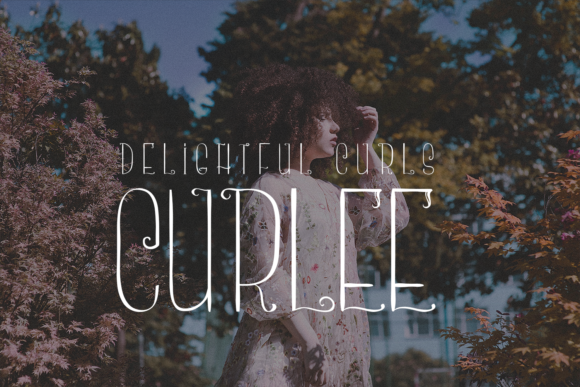
Curlee Font
Get ready to embark on a typographic safari with Curlee Font, the breathtaking display font that will transform your designs into a visual wonderland. Inspired by the untamed beauty of nature, Curlee Font is crafted to emulate the intricate curves and delicate lines found in the heart of the jungle.
With its thin and lovely appearance, Curlee Font exudes an aura of sophistication and elegance, making it the perfect choice for creating captivating logos, alluring branding, and stunning invitations that are sure to leave a lasting impression. Its versatility knows no bounds, allowing you to effortlessly elevate any project, from playful social media posts to eye-catching marketing campaigns.
Dive into the depths of Curlee Font's character set and discover a world of typographic possibilities. Unleash your creativity and let the uppercase and lowercase letters, numbers, and limited punctuation dance across your screen, bringing your words to life with a touch of natural elegance. The possibilities are endless as you explore the diverse range of applications that await you.
Step into a world of limitless design opportunities with Curlee Font, where your imagination is the only limit. Let its beauty captivate your audience, leaving them in awe of your design prowess. From heartfelt wedding invitations that evoke a sense of romance to bold and playful social media posts that demand attention, Curlee Font is the key to unlocking a world of visual enchantment.